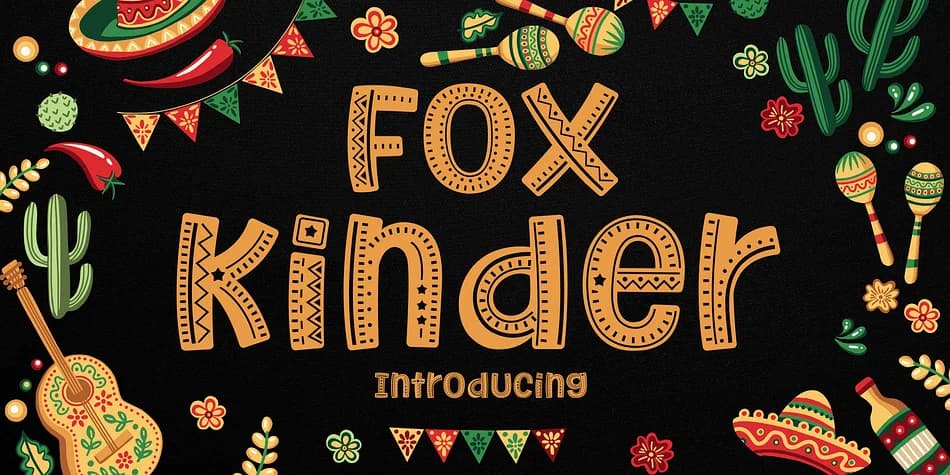
Fox Kinder radiates playful warmth and youthful charm. This decorative typeface by Fox7 bounces with energy that feels instantly accessible to young readers.
The bright, rounded letterforms work beautifully for children's picture book covers, toy and kids product packaging labels, birthday party invitation suites, and DIY craft labels that parents make for storage bins or toy organization. The design feels approachable without being overly cutesy, which means it works across different age groups rather than dating itself to one narrow demographic. Where many playful fonts sacrifice readability, Fox Kinder keeps letterforms clear and distinct, so even emerging readers can follow along without confusion. The rounded edges give it softness while the varied letter widths add visual interest that stops any page from feeling flat or monotonous. You could use it for chapter titles in early readers, decorative signage in a nursery, or labels on handmade gifts.
For body text and supplementary copy, pair Fox Kinder with something structured like a geometric sans-serif, perhaps Montserrat or Poppins. That combination gives you a clean foundation while Fox Kinder commands attention as your focal point. The contrast ensures readability while keeping personality at the forefront. You get the visual impact your project deserves without overwhelming the actual content. Find it on Creative Fabrica whenever you're ready to bring more character to your next children's design.
Fox Kinder Font is a decorative font that shines as a display or heading face. Pair it with a clean sans-serif or serif font for body text — the contrast creates a clear hierarchy while the two styles stay balanced and easy to read.
Fox Kinder Font